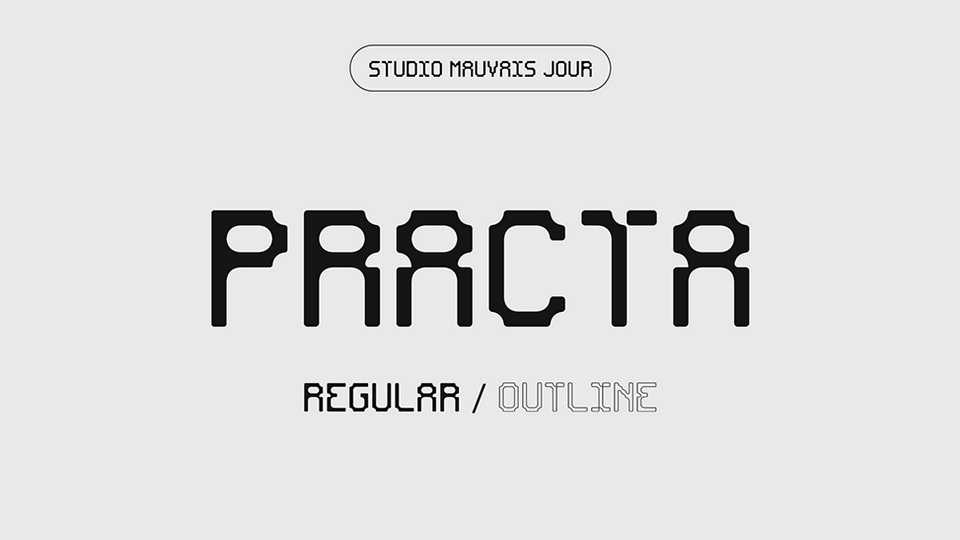
Download Practa font, a pixelated display typeface that embodies a futuristic aesthetic, perfect for both titles and paragraphs.
Designer: Studio Mauvais Jour